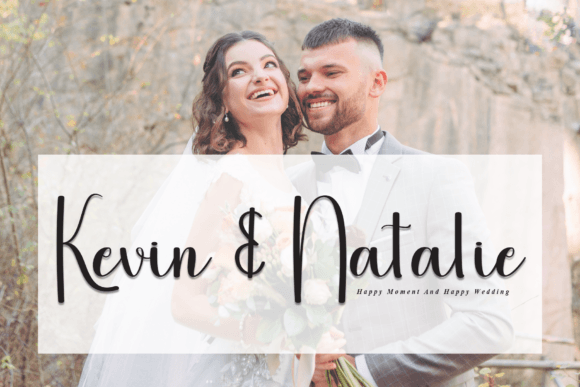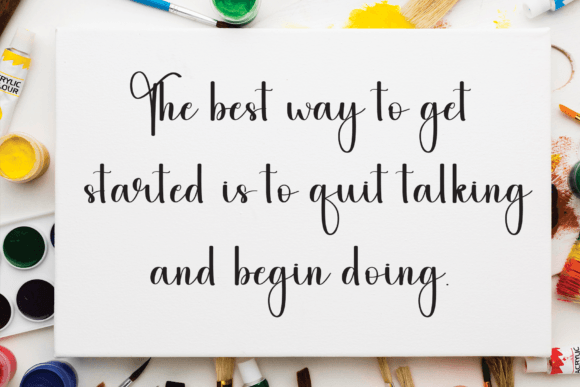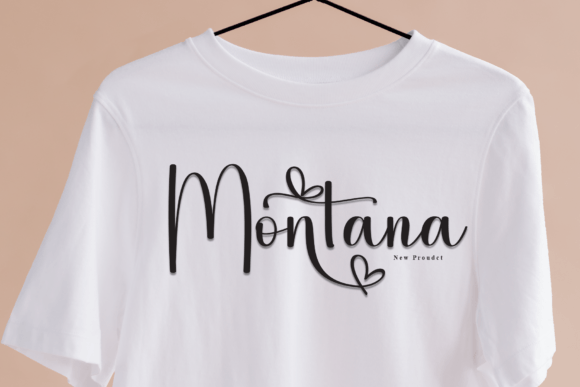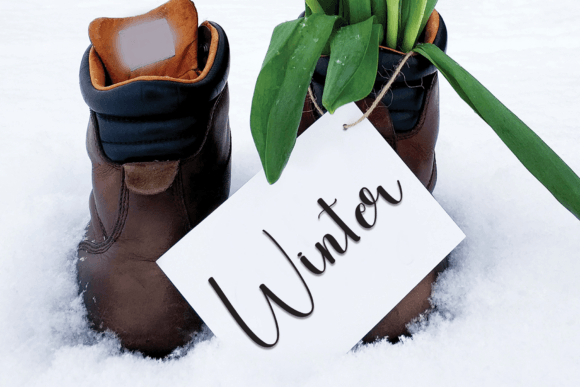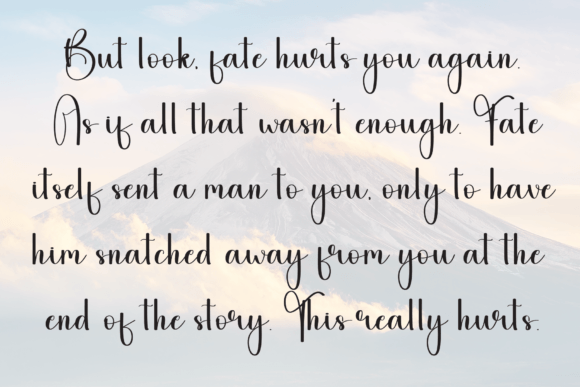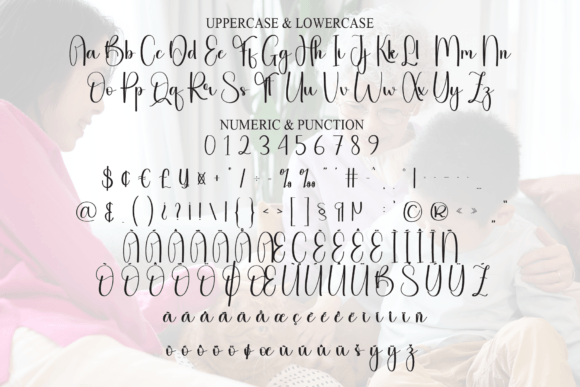
Introducing Auntie Font: The Whimsical Handwritten Display Font
Step into the enchanting world of whimsicality with the charmingly delightful handwritten display font, Auntie Font. Exuding sweet charm and a friendly ambiance, this font is inherently playful and fun. In this article, we’ll explore the unique features of Auntie Font and how it can add a touch of magic to your design projects.
A Font that Embodies Whimsy and Charm
Auntie Font is a carefully crafted handwritten display font that embodies the essence of whimsy and charm. Its sweet and friendly ambiance makes it perfect for designers and crafters looking to add a dash of amusement and joy to their projects. Whether you’re creating wedding invitations, greeting cards, or any other design project, Auntie Font is sure to delight your audience.
Auntie Font is immensely perfect for crafting wedding invitations, greeting cards, or any design project seeking to inject a dash of amusement and joy. Its playful and fun nature makes it an excellent choice for:
Unique Features of Auntie Font
Auntie Font boasts several unique features that make it stand out from other fonts:
- Handwritten style: Auntie Font has a beautifully crafted handwritten style that gives it a personal and friendly touch.
- Whimsical flair: The font’s whimsical nature makes it perfect for designers and crafters looking to add a dash of playfulness to their projects.
- Easy to read: Despite its playful nature, Auntie Font is easy to read and understand, making it perfect for body text and headings.
- Versatile: Auntie Font can be used for a wide range of design projects, from digital to print.
In conclusion, Auntie Font is a charmingly delightful handwritten display font that is sure to bring a touch of whimsy and charm to your design projects. Its playful and fun nature makes it perfect for wedding invitations, greeting cards, and any other design project seeking to inject a dash of amusement and joy. With its unique features and versatility, Auntie Font is a must-have for designers and crafters looking to add a dash of magic to their projects.